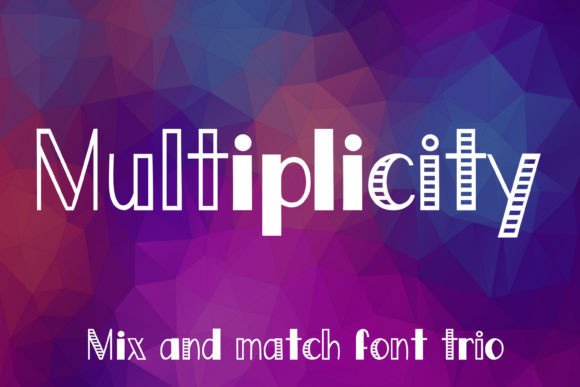
Buckle up for a typographic joyride with Multiplicity, our exclusive font trio designed to inject vibrancy and fun into your creative projects. Picture this: a world where letters leap off the page, making your designs dance with delight.
At the heart of Multiplicity lies its mesmerizing Hollow font, a skeletal silhouette that exudes a playful charm. Its delicate lines create an airy, almost ethereal presence, inviting the imagination to soar. Pair it with the Solid font, its bold and confident counterpart, and watch your words transform into eye-catching statements.
But wait, there's more! The Stripes font completes this dynamic trio, adding a dash of whimsy and pizazz. Picture your designs adorned with captivating stripes, weaving a visual tapestry that captivates and enthralls.
Multiplicity is a font family that knows no boundaries. Its versatility extends from whimsical flyers and playful social media posts to eye-catching logos and vibrant branding materials. Let your creativity run wild as you explore the endless possibilities that await.
So why settle for ordinary fonts when you can unleash the magic of Multiplicity? Dive into a world of typographic wonders and discover a font family that will make your designs shine brighter than ever before. Embrace the fun, embrace the joy, embrace Multiplicity!